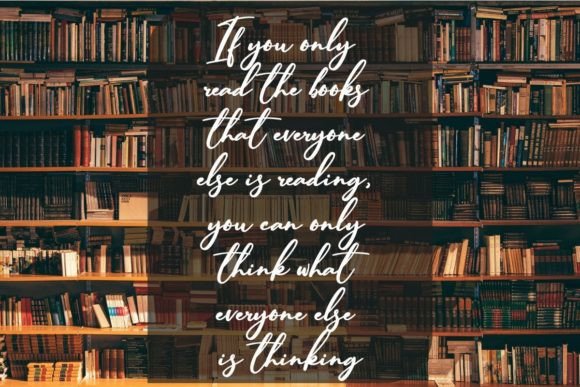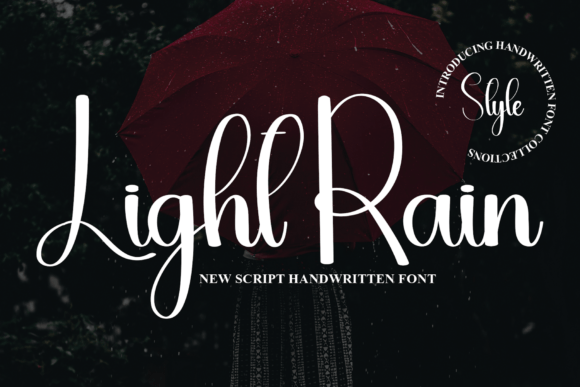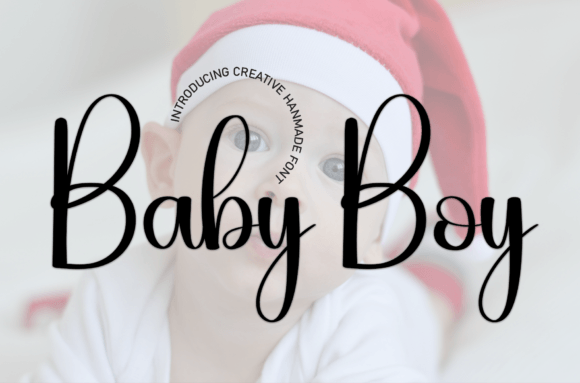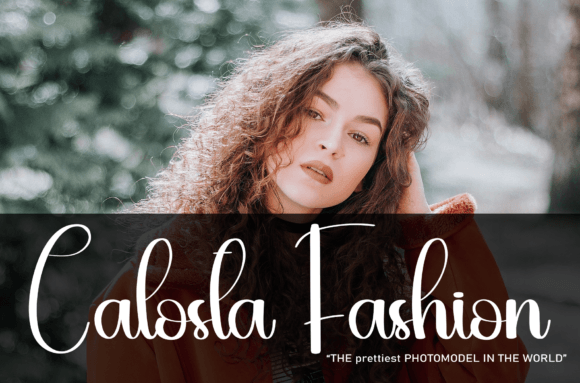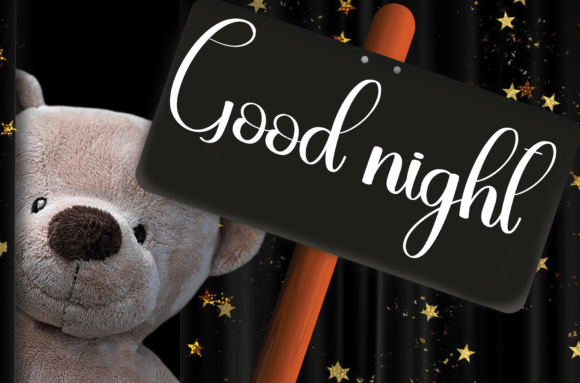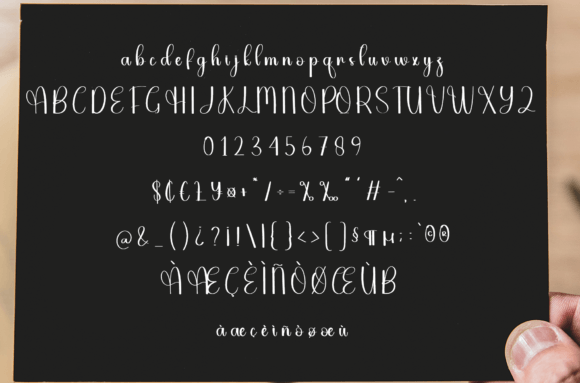
Light Rain
About Light Rain
Light Rain is a sweet handwritten font. Friendly and cute, this font is ideal for writing wedding invitations, cards, or any other design that might need a fun touch!